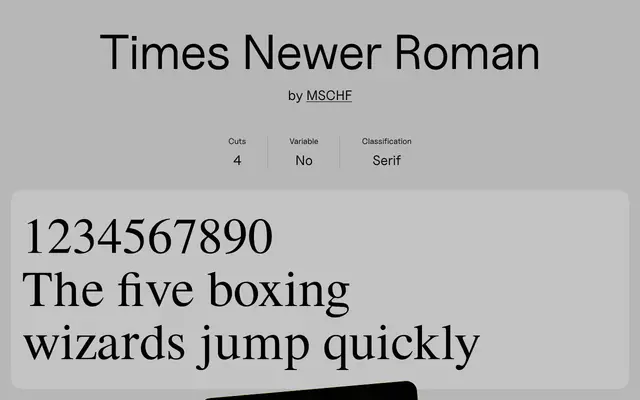
Times Newer Roman
A reworked Times New Roman by art collective MSCHF, subtly widened to make documents appear longer without obvious detection.
Released by art collective MSCHF, this is a modified take on Times New Roman with letterforms stretched just enough to pad out page counts — a practical joke dressed as a typeface. It ships in four cuts under the GNU General Public License v2, making it free for commercial and personal use. The concept is wry and specific, though its utility beyond the gag is limited.
Classified as serif on the page, based on Times New Roman — a canonical transitional serif. Times Newer Roman is a modified version that subtly widens letterforms to make documents appear longer.